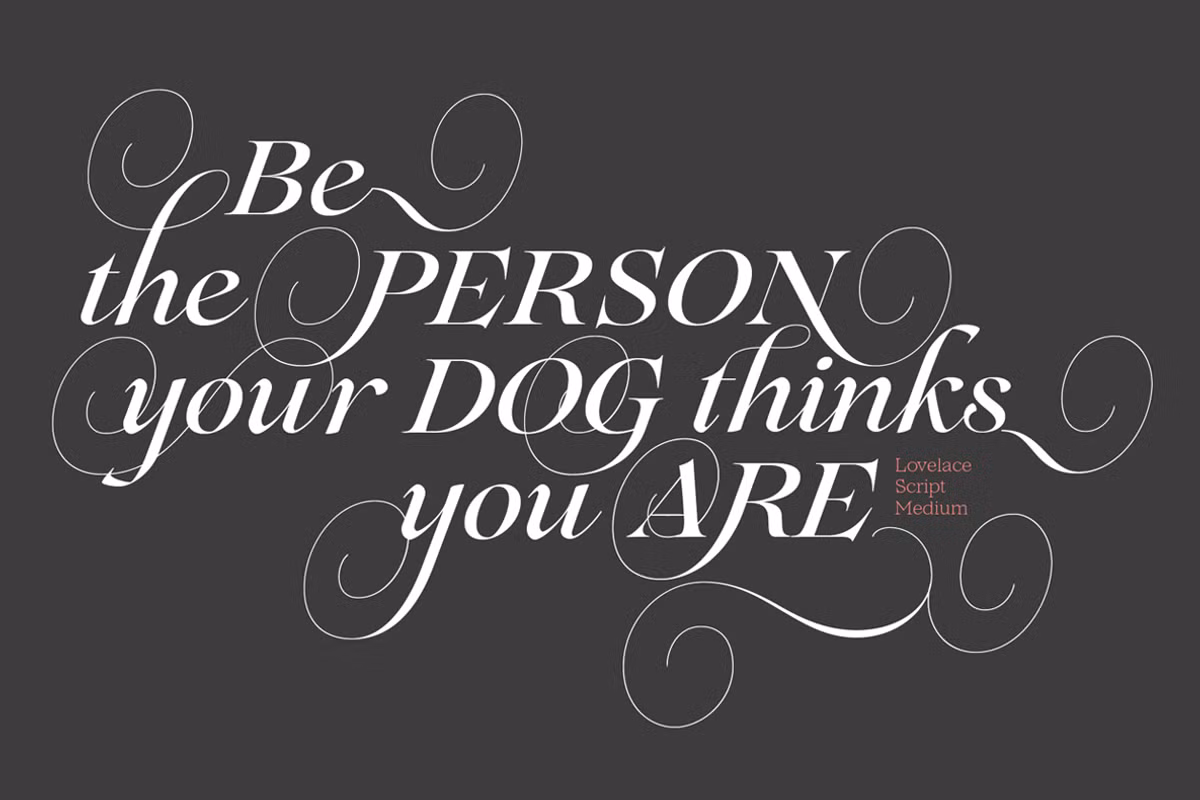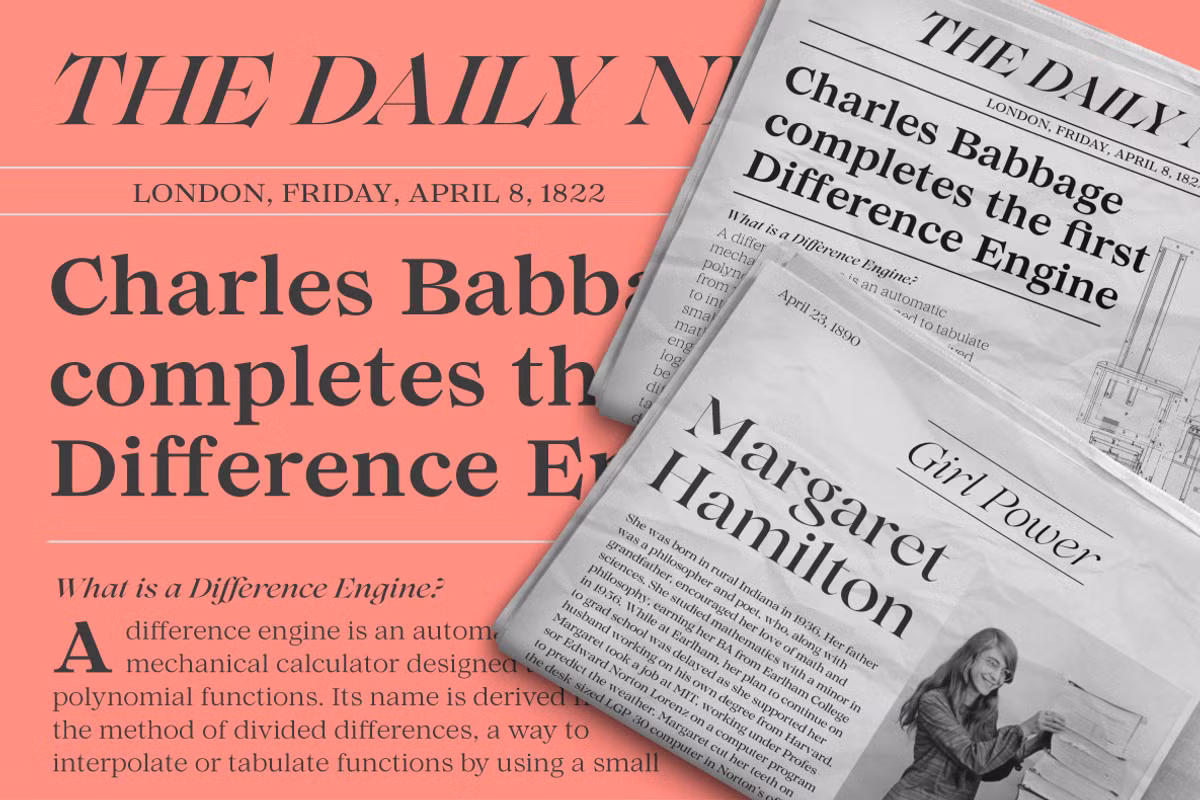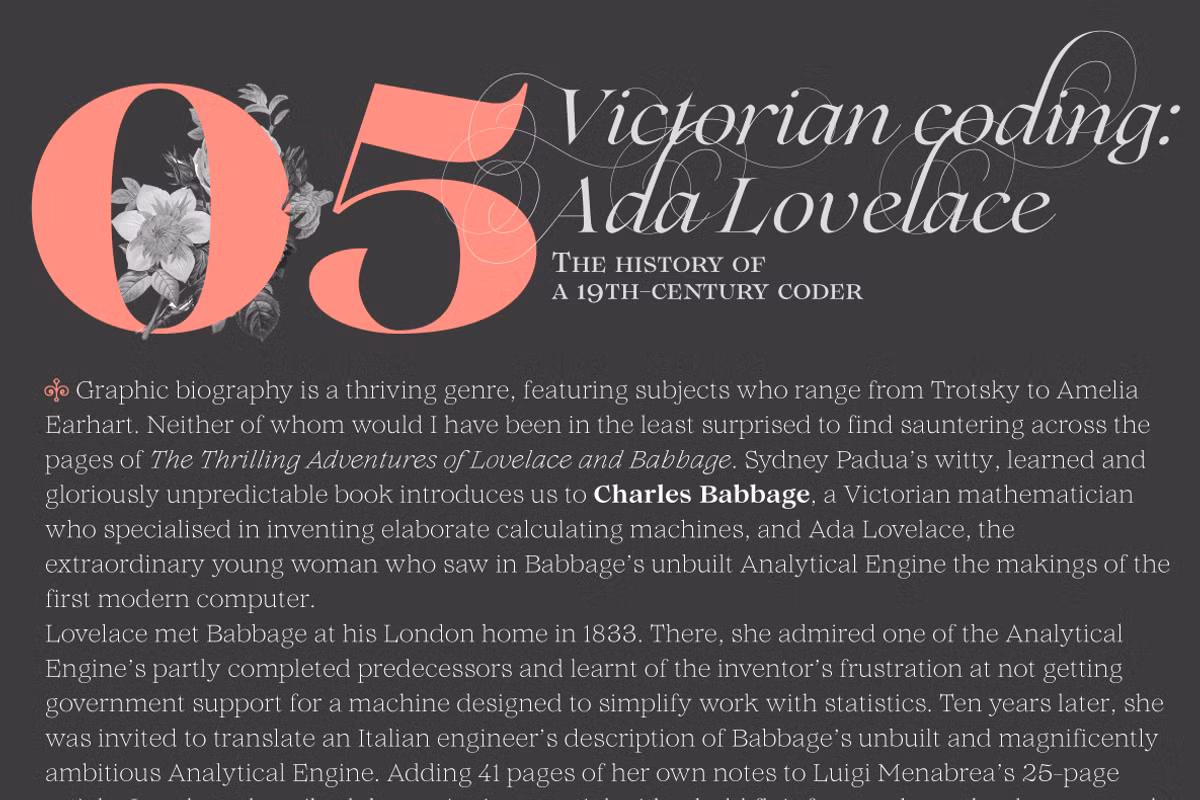
Lovelace: Victorian-Inspired Typeface with 30 Elegant Fonts
Lovelace is a beautifully designed typeface created by Cosimo Lorenzo Pancini, Andrea Tartarelli, and Maria Chiara Fantini. It’s a tribute to the traditional “Old Style” typography of the 19th century. Lovelace brings back the classic hand-lettered shapes of the Renaissance, offering a more casual and approachable alternative to the popular Bodonian serifs. What makes Lovelace special is its elegant look and versatility, which sets it apart in the world of modern typography.
This typeface is perfect for those who want to add a touch of sophistication and warmth to their designs. With its unique blend of traditional and modern elements, Lovelace is sure to make a statement. Whether you’re working on a project that requires a classic feel or a modern twist, Lovelace is an excellent choice. Its designers have done an amazing job of crafting a typeface that is both beautiful and functional.
Overall, Lovelace is a fantastic addition to any designer’s toolkit, and its beauty and versatility are sure to inspire creativity.
Design Style of Lovelace
The Lovelace typeface gets its look from old-style calligraphy and strong, angled serifs, similar to what typographers like Pheimester and Alexander Kay used to do. You can see these influences in the tiny details and elegant look of Lovelace. To make it even more interesting, the design also takes some ideas from the Elzevir style, which was popular in the 19th century. This adds a nice contrast to the typeface, making it look more sophisticated.
Lovelace is a typeface that comes in two different sizes, which is pretty useful. It has six different weights, from really thin to really bold. The version for regular text is designed to be easy to read, with letters that are big enough to see clearly on a screen. This makes it great for using in big blocks of text, like in a book or on a website.
The other version, for headings and titles, is more fancy and has stronger contrasts, which makes it perfect for making a big impact in things like magazines and posters. The people who made Lovelace thought really carefully about how it would look in different situations, so it always looks nice and elegant.
Character Sets and Advanced Features
One of the standout features of Lovelace is its expansive character set, which covers over 200 languages that utilize Latin, Cyrillic, and Greek alphabets. This extensive coverage makes Lovelace a versatile choice for designers and typographers working in diverse linguistic contexts.
Lovelace also has some extra features that make it really useful and versatile. These features include things like advanced OpenType stuff that helps with usability and flexibility.
- Stylistic Alternates: Offers alternative characters for added design variety.
- Standard and Discretionary Ligatures: These ligatures improve the aesthetic flow of text and help create a more polished look.
- Positional Numerals: This feature ensures that numbers are displayed in a style consistent with the surrounding text.
- Small Caps: Perfect for creating emphasis in headings or design elements.
- Case Sensitive Forms: Provides different forms for uppercase and lowercase letters, enhancing typographic harmony.
Use Cases for Lovelace
Lovelace is a highly versatile typeface that can be utilized in a wide range of applications. Here are some of the most effective use cases for this elegant font:
- Editorial Design: The sharp contrast and refined details of the display variant make Lovelace an excellent choice for magazines, newspapers, and journals.
- Branding: Its friendly yet sophisticated appearance lends itself well to logo design, packaging, and other branding materials.
- Web Design: The text variant’s screen-friendly design ensures that Lovelace performs beautifully on websites and digital platforms.
- Invitations and Stationery: The elegant curves and calligraphic influences make this typeface suitable for wedding invitations, event announcements, and other formal stationery.
When it comes to pairing Lovelace with other typefaces, the key is to choose complementary fonts that enhance its beauty without overshadowing it. Here are some pairing suggestions:
- Body Text Pairing: Consider combining Lovelace with a clean sans-serif font like Montserrat or Lato for body text. This creates a modern contrast while keeping the overall design elegant.
- Headings and Subheadings: Pair Lovelace with a bold serif typeface like Playfair Display for headings. This combination can create a striking hierarchy in editorial layouts.
Lovelace is all about combining beauty and functionality, so you can make your typography stand out. By using Lovelace, you can add a touch of charm to your designs and take them to the next level. With its advanced features and stunning fonts, Lovelace is a great choice for anyone looking to elevate their design work.
Whether you’re working on a big project or just want to add some flair to your designs, Lovelace is a great option. It’s a way to make your typography more beautiful and effective, and to bring a sense of sophistication to your designs.